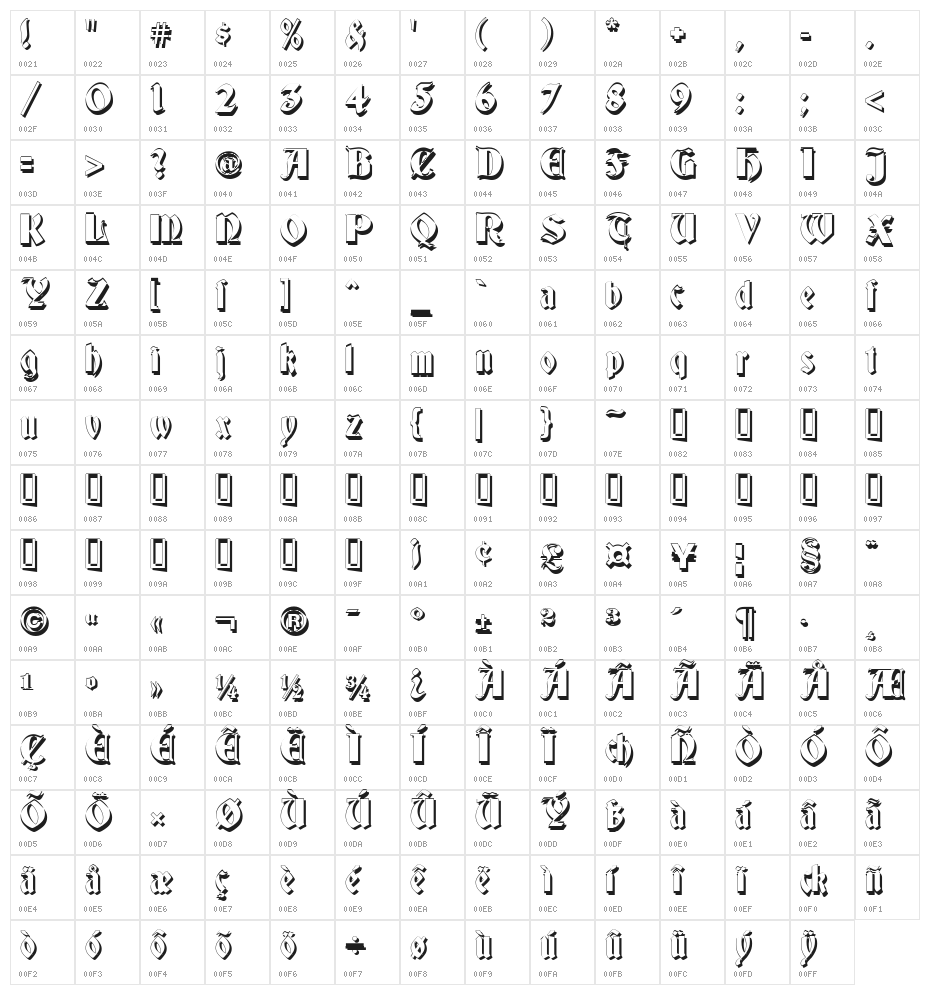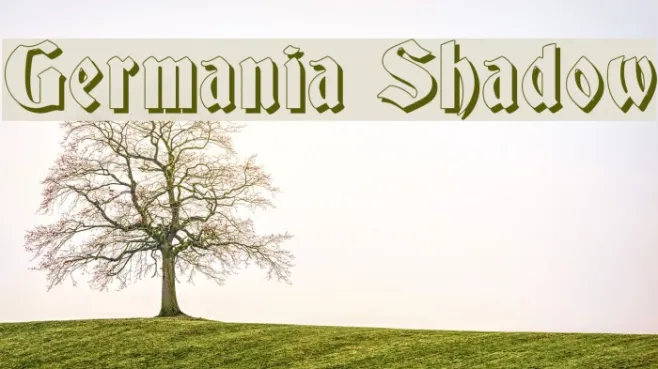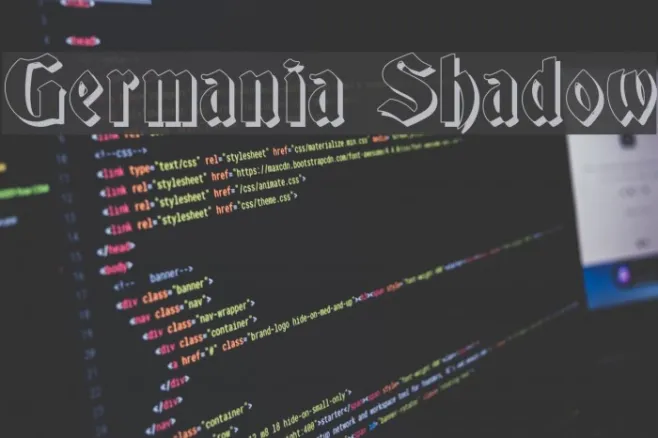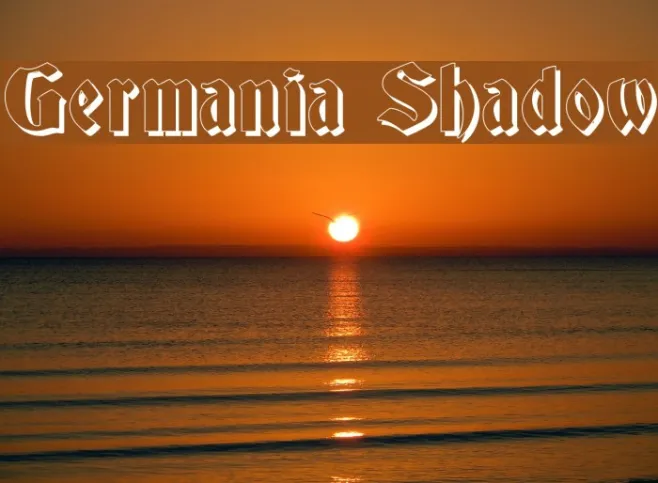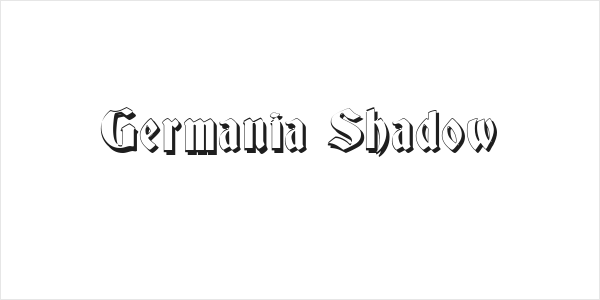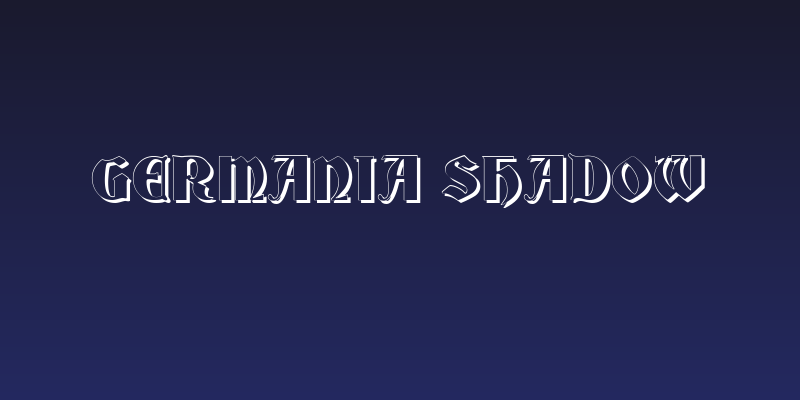
Germania Shadow Font
Germania Shadow Description
This font features a bold, shadowed design with a distinct Gothic influence, characterized by sharp, angular lines and a dramatic presence. The uppercase and lowercase letters maintain a consistent style, with intricate detailing that adds depth and dimension. The numbers and special characters follow the same aesthetic, ensuring a cohesive look across all text. The shadow effect gives the font a three-dimensional appearance, making it stand out prominently. This typeface is ideal for creating a strong visual impact, suitable for projects that require a touch of historical or medieval flair.
| Proposed Projects | Ideal for posters, book covers, logos, and any design requiring a dramatic, historical touch. |